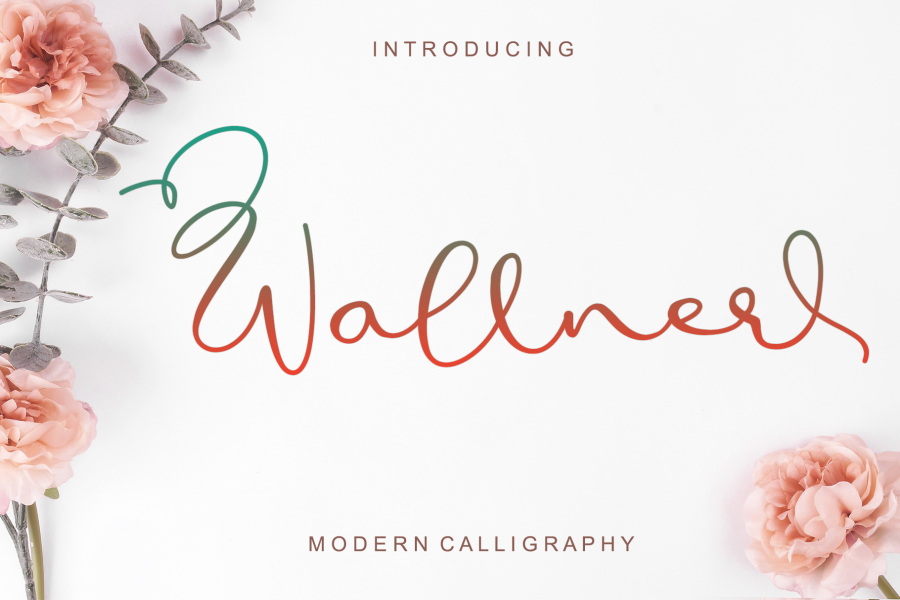
Wallner - Personal Use Regular Waterfall
Wallner is a Handwritten Style font by Letterafa Studio. It has flowing letters that will give your designs a unique and sweet look. Wallner font is perfect; logos, greeting cards, a package design, a brand identity, craft design, any DIY project, book title, wedding invitation, packaging, and more.
- Basic Uppercase and Lowercase
- Alternate, Swashes and Titling
- Ligature
- Number and Punctuation
- Multilingual